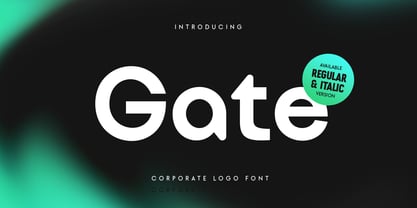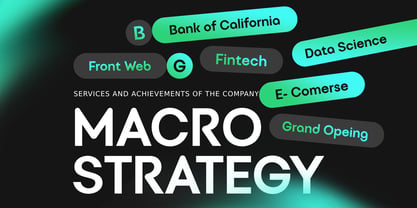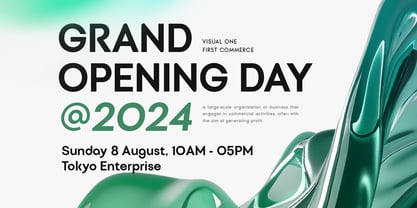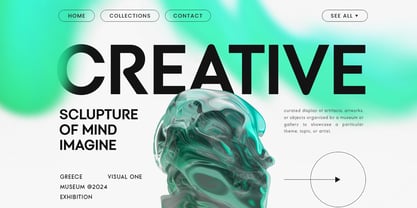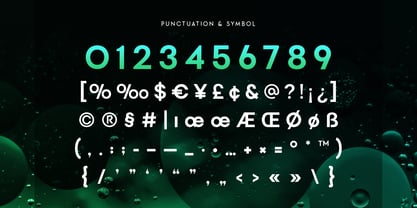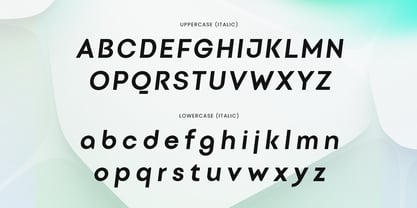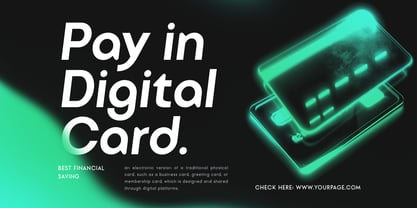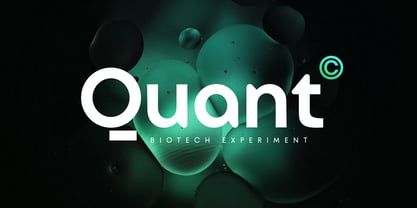
Gate SS
von Sensatype Studio
Die Schriftfamilie Gate SS wurde von Zamroni Hamzah entworfen und von Sensatype Studio veröffentlicht. Gate SS enthält 2 Stile und Familienpaketoptionen. Mehr über diese Familie
Gate is a modern corporate logo font designed to bring a sleek and professional look to your business branding. Its clean lines and minimalist design make it ideal for companies looking to project a polished and sophisticated image. Gate ensures that your logo communicates reliability, trustworthiness, and professionalism in a simple, yet powerful way.
Perfect for corporate businesses, tech firms, or any brand that values clarity and straightforward design, Gate's timeless style makes it versatile for a range of projects. Its elegant structure conveys authority without being overly complex, ensuring your brand stands out in a refined, professional manner.
Gate also comes with alternate characters and a variety of OpenType features, giving you creative control and flexibility to customize your design. Whether used in print or digital, Gate’s adaptability makes it a reliable choice for corporate identity and branding.
• Corporate Characters in Regular & Italic Version
• Punctuation, Number, and Symbol
• Uppercase and Lowercase
• Multilingual Support
• Opentype Features